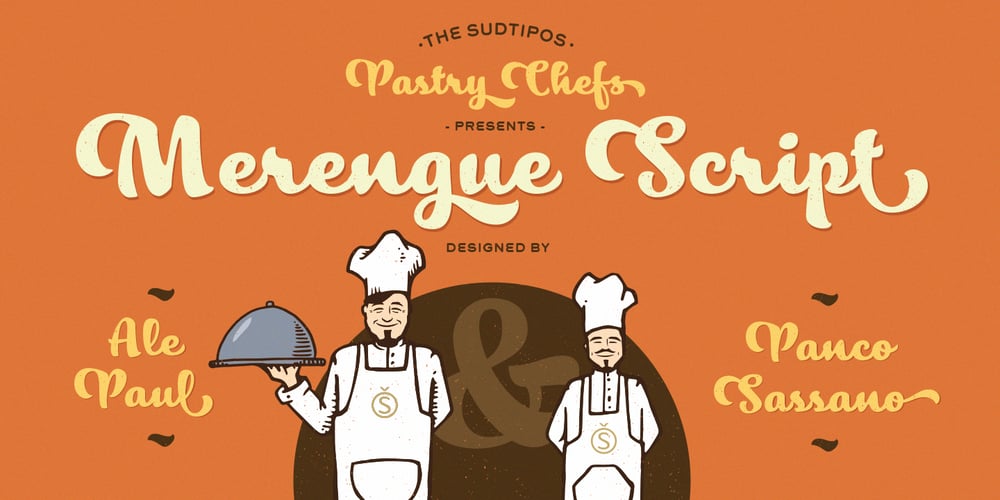
Merengue Script
Merengue Script font
Merengue Script Font Family was designed by Alejandro Paul, Panco Sassano and published by Sudtipos. Merengue Script contains 2 styles and family package options. Merengue Script is the second typeface designed by Panco, once again together with Ale Paul, who supervised the whole development. In this opportunity, the process of shape research and the systematization of signs led him to dive into new waters. The objective was to generate a system of signs in which the construction of such was not directly bound to traditional calligraphy, nor to texts typography. Instead, the point was to create signs inspired in “Brush pen” calligraphy but with their main features drawn or literally illustrated. The result was a font with personality, authenticity and uncommon formal aspects that make Merengue Script an interesting, highly attractive and rather unusual font. From the very beginning, the search was based on creating a font with weight and good presence in big formats, but, at the same time, efficient for brief texts of small formats. The aim was to make it usable mainly in candy, sweets and chocolate packaging. The predominance of round shapes, harmonious modulations and funny and friendly-looking visual rhythms spark a special effect in the usage of Merengue Script. Texts are enhanced with an interesting visual charm, capable of transforming a very simple text into a virtual illustration that semantically reinforces the messages in a simple way, without putting legibility at risk. With a basic set of stylistic alternatives full of frills and flounces for initials, ornamental and final letters, plus a set of disconnected signs, Merengue Script offers a wide and versatile range of options for graphic designers in the process of packaging design.